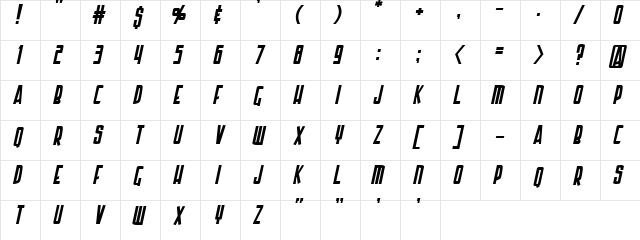
Armor Piercing Italic Free Font
Armor Piercing Italic
Complete Armor Piercing Italic glyph index. Displaying only characters natively supported by Armor Piercing Italic font.
Design Context for Armor Piercing
Armor Piercing is a composed and adaptable typeface that performs quietly and consistently across a wide range of design contexts. The slanted form adds forward momentum and visual energy.
Pro Tip: Use Armor Piercing for emphasis, pull quotes, and subheadings where its slanted energy can add rhythm to the layout.